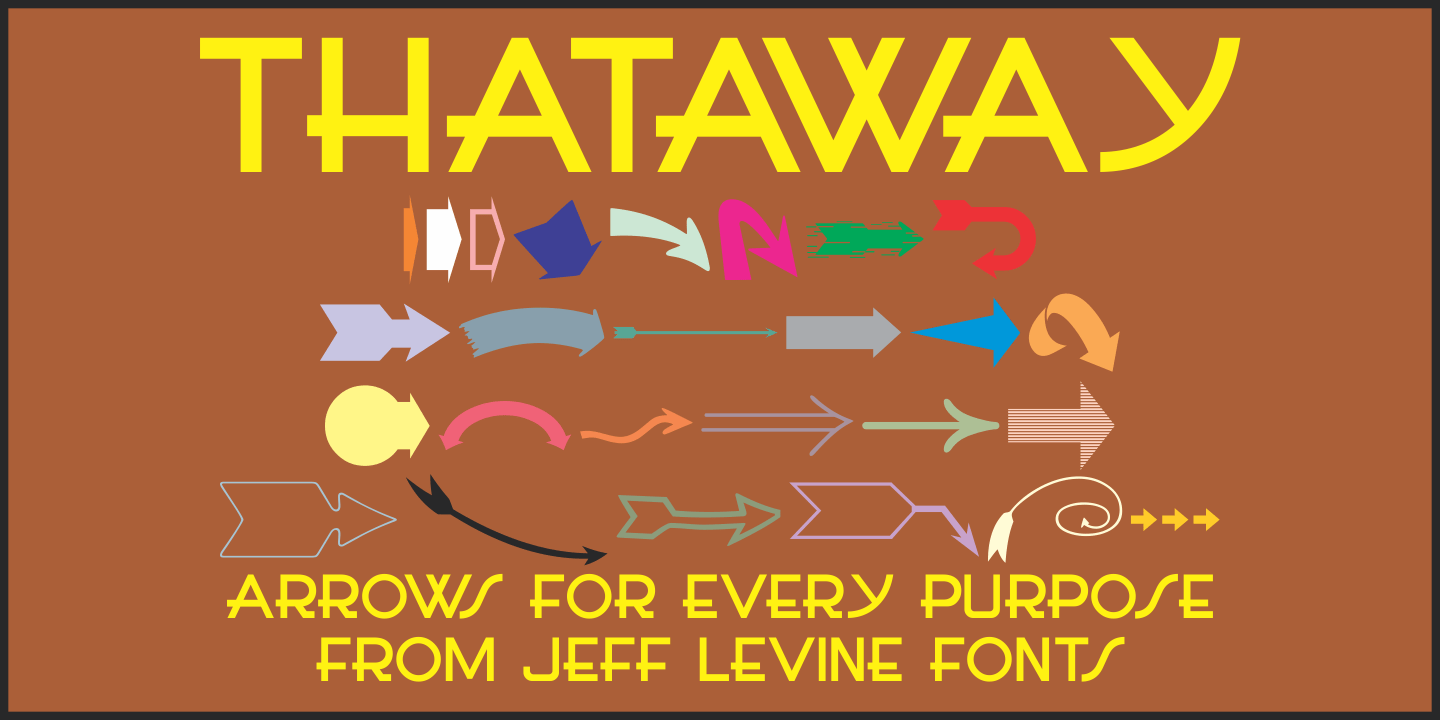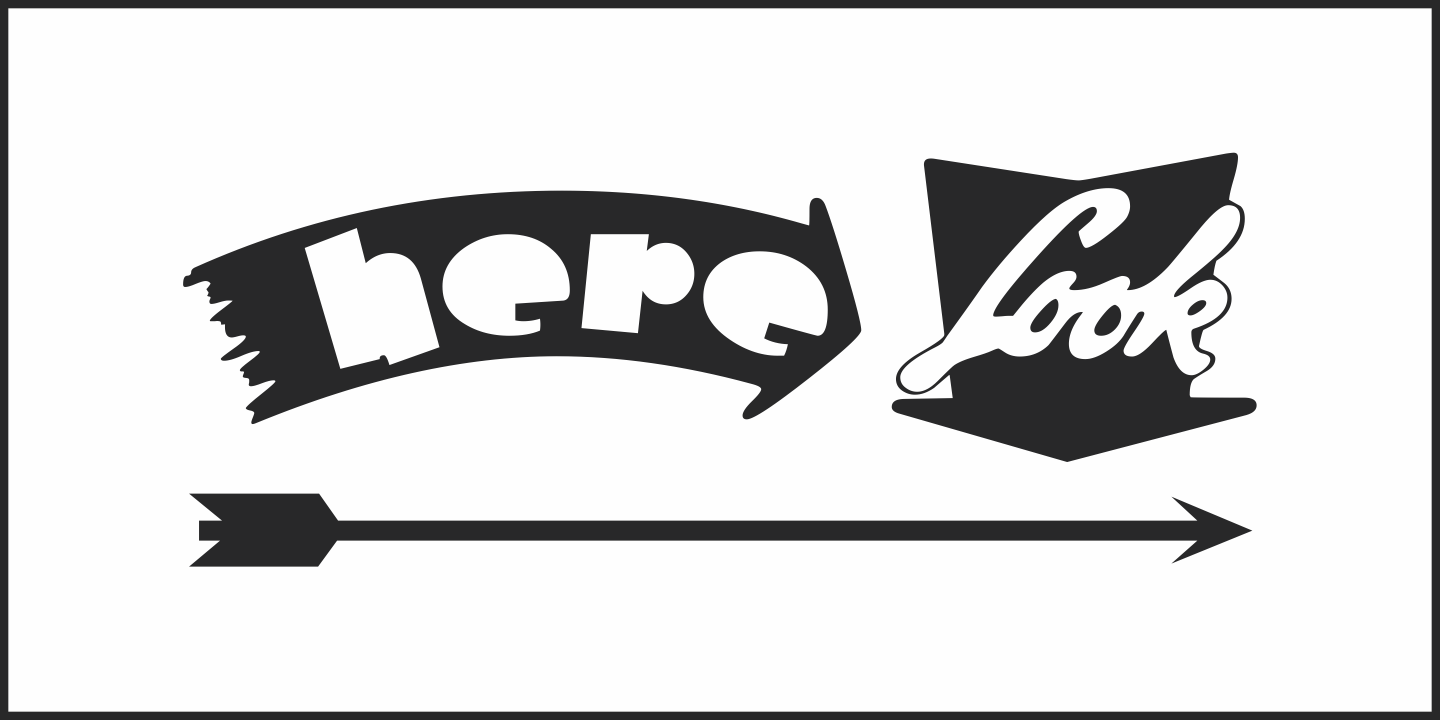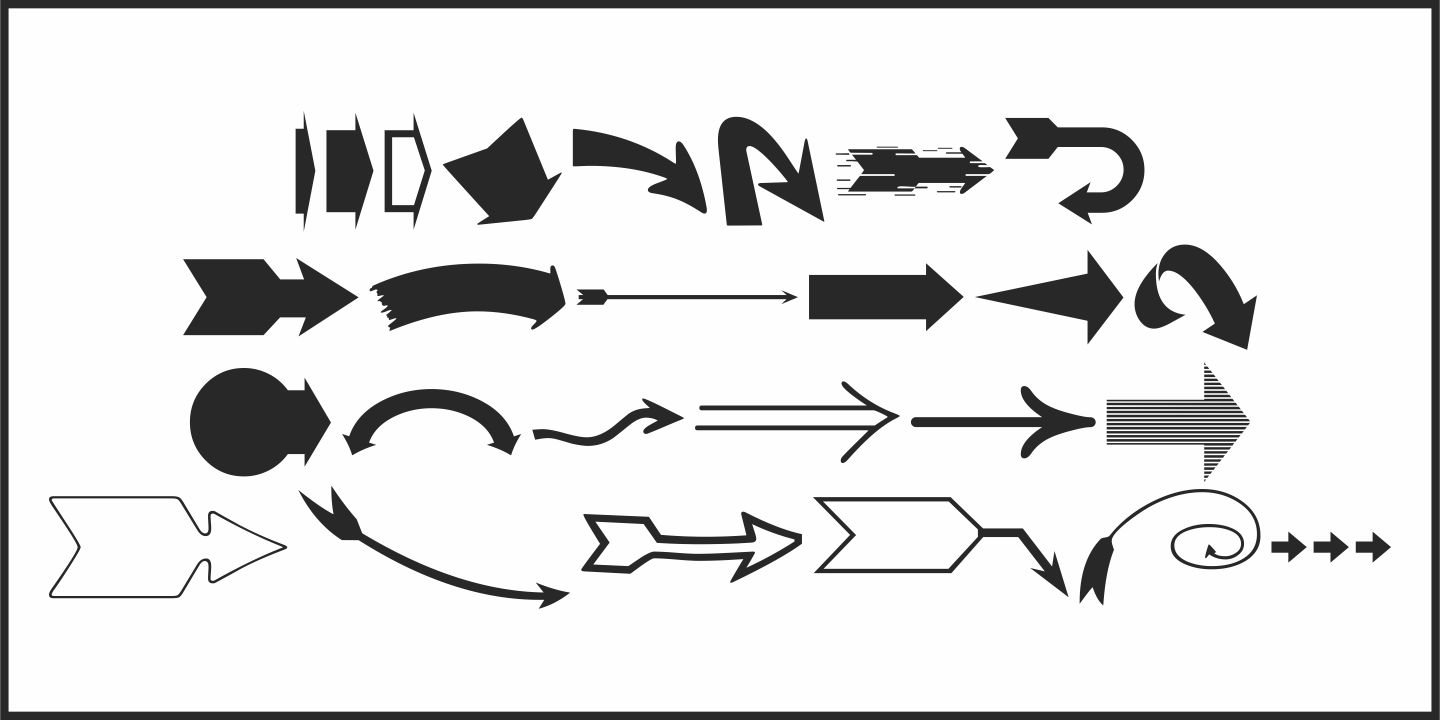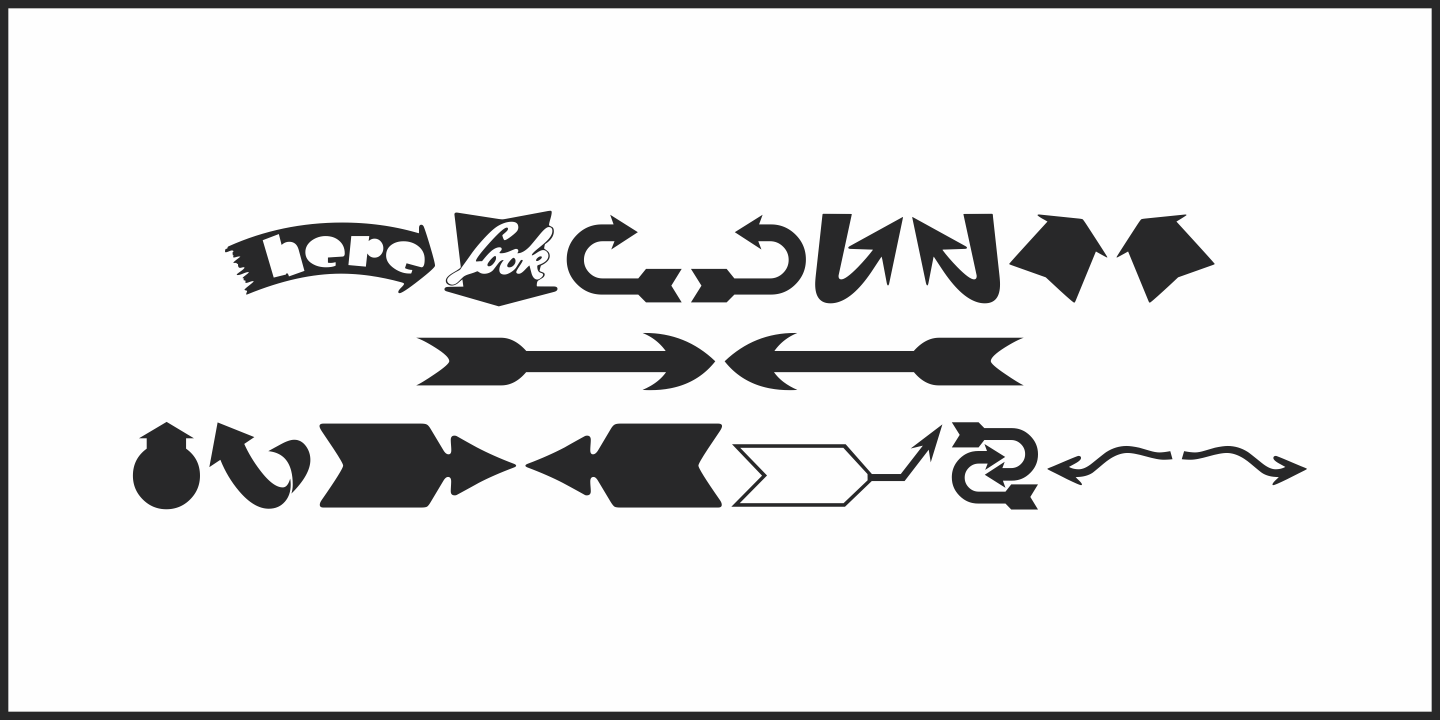
Thataway
Thataway JNL is an assortment of arrows in many different sizes, shapes and directions that were collected from antique letterpress blocks and other vintage sources.